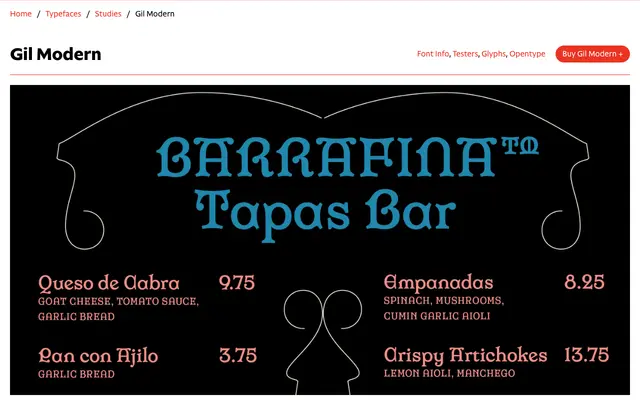
Gil Modern
CAST · Valerio Monopoli · 2021
A single-weight display typeface by Valerio Monopoli drawing on Lombardic capitals and Catalan Art Nouveau lettering, named after the patron of Barcelona's Hospital de la Santa Creu i de Sant Pau.
Designed around the ornamental P and G letterforms found throughout Lluís Domènech i Montaner's Hospital de la Santa Creu i de Sant Pau, the typeface extends those Lombardic capitals across a full alphabet, pairing them with a rounded seriffed lowercase informed by Domènech's own modernist magazine mastheads. Swashes and drop terminals appear in both cases, and several stylistic sets offer more conventional alternates where the more extreme forms would be out of place. Suited to dropcaps, display headlines and decorative titling, it carries a medieval weight alongside the organic curves of fin-de-siècle Catalan design.
A low-contrast display typeface with Lombardic capitals and rounded seriffed lowercase, rooted in medieval and Catalan Art Nouveau lettering traditions rather than any conventional text serif classification.